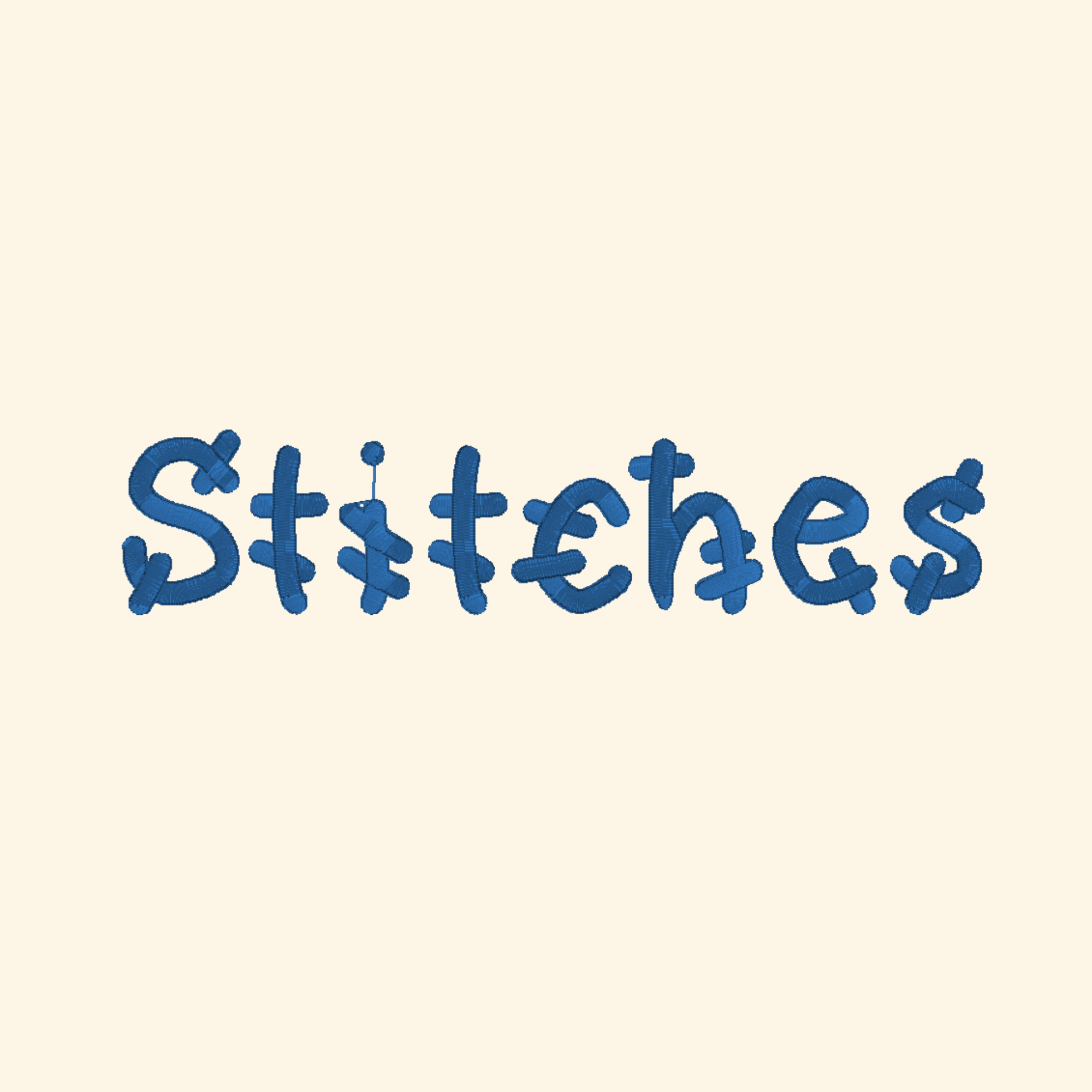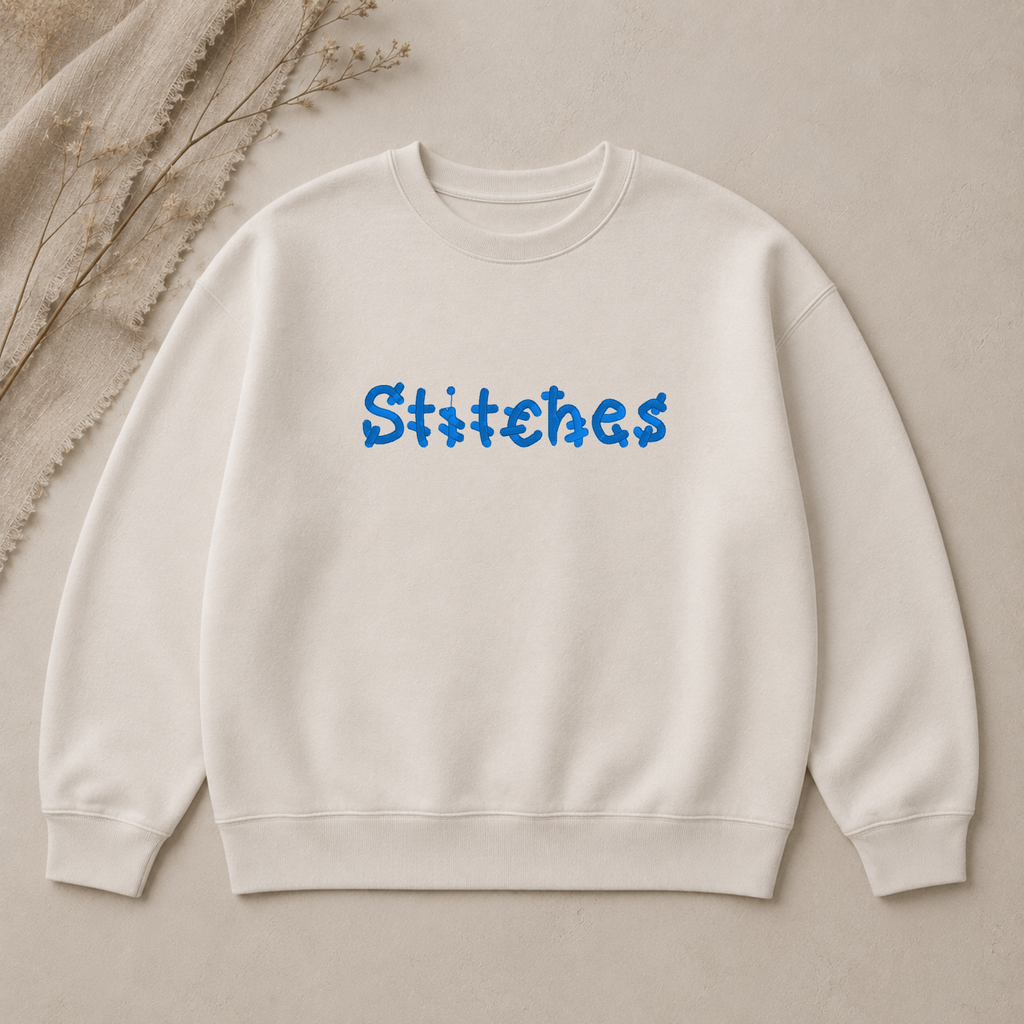
Stitches embroidery font, Funny font, Machine embroidery font, 7 Formats + 7 Sizes
🪡Stitches - premium embroidery font.
Take your projects to the next dimension with Stitches - professional machine embroidery alphabet! Specially digitized for high-impact results, this font is the perfect choice for creating any item that requires embroidery.